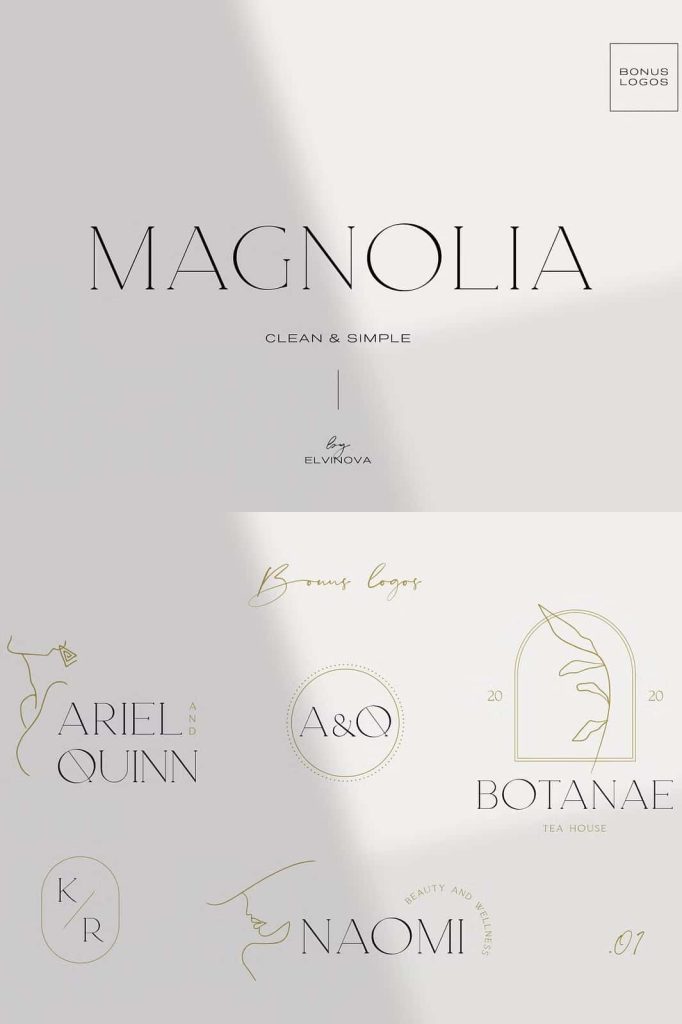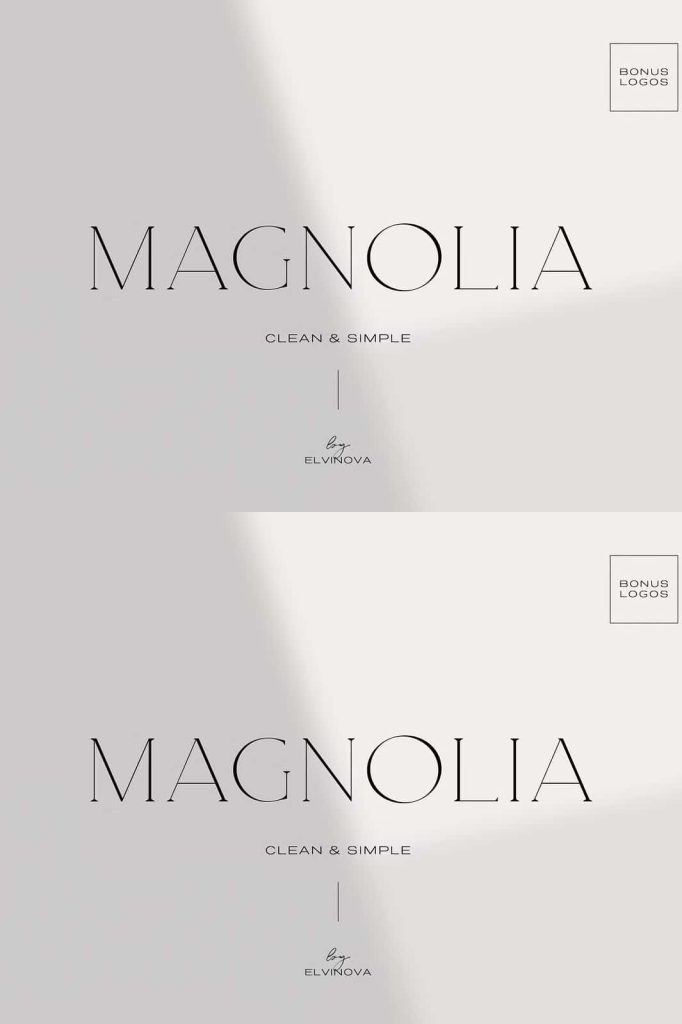
Magnolia Modern Serif Typeface: Clean, Elegant, and Timeless
The Magnolia Modern Serif Typeface embodies elegance, precision, and contemporary classic style. Designed with clean lines, refined curves, and a graceful structure, Magnolia offers a delicate balance between modern minimalism and traditional serif sophistication. As a typeface crafted for designers who value beauty, professionalism, and artistic harmony, Magnolia stands out in branding, editorial work, digital content, and luxury product design. With the addition of feminine bonus logos and a pairing script font, this typeface becomes a complete design toolkit capable of elevating any creative project.
A Clean and Delicate Serif with Modern Appeal
Magnolia’s design focuses on clarity, simplicity, and gentle detail. Every serif, curve, and stroke is carefully crafted to deliver a polished, high-end aesthetic. Its modern serif structure creates a sophisticated look without appearing overly ornate, making it suitable for a wide variety of visual styles. Whether you aim for a sleek contemporary feel or a soft feminine tone, Magnolia adapts effortlessly.
The font’s delicate strokes highlight its refined personality. This level of subtlety gives your designs a calm, confident presence. Its clean architecture ensures readability, while its elegant form adds character. Magnolia’s modern serif design blends classic typographic principles with fresh, updated styling, making it perfect for designers seeking both beauty and practicality.
Includes Feminine Bonus Logos for Instant Branding
To enhance creative flexibility, the Magnolia Modern Serif Typeface includes a set of feminine bonus logos. These premade branding elements speed up your workflow and allow you to assemble polished brand identities with ease. Each logo features graceful minimal lines and contemporary composition, designed to complement Magnolia’s serif structure.
The included logos work beautifully for boutique brands, lifestyle businesses, beauty products, fashion labels, personal branding, and luxury services. Designers can customize these logo elements to fit a variety of styles, creating cohesive and memorable brand identities in minutes. The pairing of the serif font with these elegant logos provides a complete branding solution for modern creatives.
A Perfect Script Pairing for Elegant Typography
Magnolia becomes even more versatile with its complementary script font pairing. The script adds movement, softness, and handwritten charm to your designs, creating contrast against the strong but delicate serif structure. This pairing opens up opportunities for expressive typography, giving every project enhanced emotional impact.
Use the script for accent text, signatures, taglines, or decorative elements while reserving the serif for headings, body text, or structured layouts. Together, these two fonts create dynamic compositions that feel polished, artistic, and intentional.
Ideal for Branding, Editorial Layouts, and More
The Magnolia Modern Serif Typeface thrives across diverse design environments. Its clean structure makes it a powerful choice for logos, social media content, product packaging, and elegant brand identities. The bonus logos and script pairing elevate its functionality, making it far more than a standalone font.
In editorial design, Magnolia’s clarity and class create striking magazine covers, graceful headlines, stylish pull quotes, and beautiful article layouts. Its modern serif structure ensures that everything from long-form text to decorative titles feels cohesive and visually engaging.
For event materials—such as wedding invitations, save-the-date cards, and celebration stationery—Magnolia brings romance, sophistication, and timeless beauty. Its feminine energy blends beautifully with floral elements, minimalist layouts, and elegant color palettes.
Elevate Your Creative Work with Magnolia
The Magnolia Modern Serif Typeface is more than a font. It is a complete design experience that merges modern style with classic beauty. With clean letterforms, delicate details, bonus feminine logos, and a graceful script pairing, Magnolia provides endless opportunities for creating luxurious and memorable designs. Whether you are crafting a brand identity, editorial layout, product label, website header, or elegant stationery suite, Magnolia delivers refined results with ease.
Let the Magnolia Modern Serif Typeface transform your creative vision into something timeless, polished, and full of modern elegance.